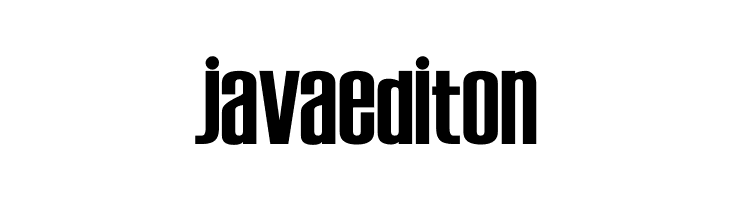
Marginalia Regular Font
- Font: Marginalia Regular
( Fonts by Bartek Nowak - www.nowak.tv/fontoholic/ )
A bold, condensed font with a modern and impactful style.